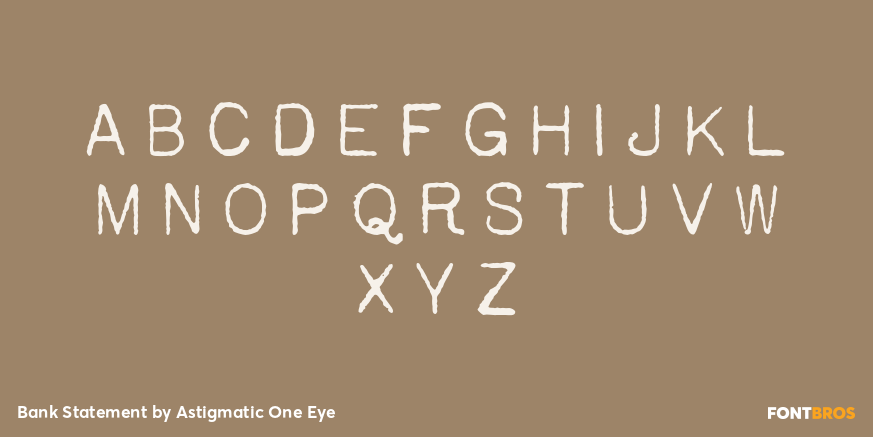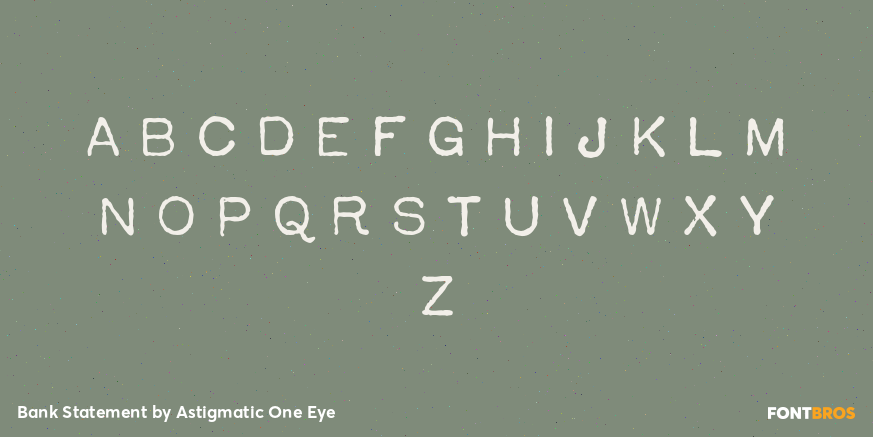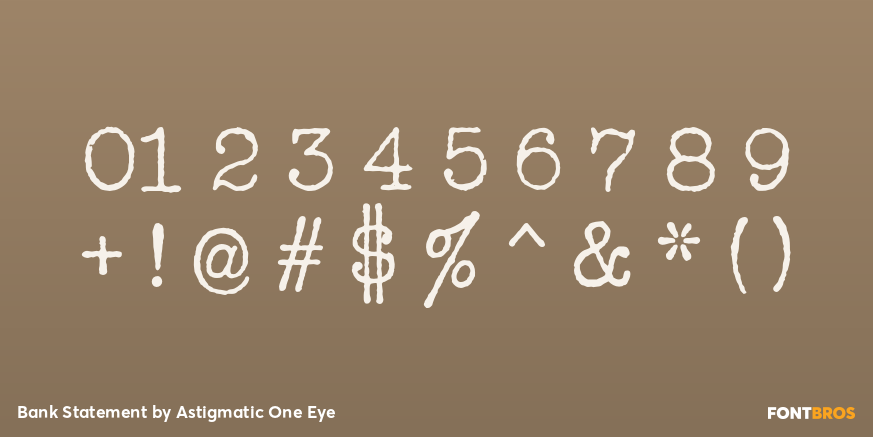
Bank Statement
Font Family by Astigmatic One Eye
Bank Statement is a distressed sans serif with a typewritten, document-like character that feels inked, worn, and authentically ephemera-inspired. Its rough texture gives clean letterforms a used, stamped impression, making it a strong choice when you want typography that looks archival, utilitarian, or intentionally imperfect.
That weathered voice suits poster work, packaging, branding, and display pieces that need a little grit and history. It can also bring a convincing paper-trail feel to editorial concepts, props, and graphics built around records, forms, or vintage office matter.
Created by Astigmatic One Eye, this family includes 1 font style, keeping the focus on a singular look with plenty of atmosphere.